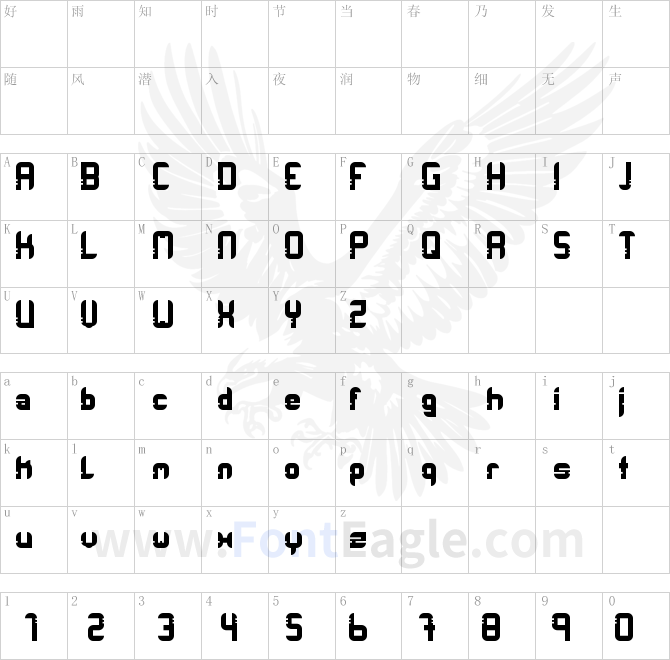
- Font name:Orbit Racer
- Font Subfamily:Orbit Racer
- Font Subfamily ID:FontForge 2.0 : Orbit Racer : 29-3-2013
- Font Full Name:Orbit Racer
- Postscript:Orbitracer
- Font Copyright:Chris Fiedlet